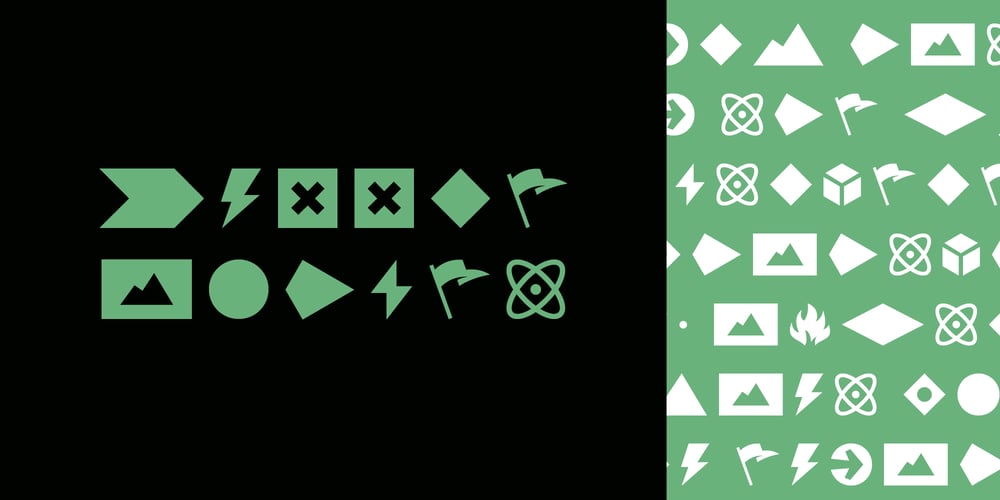
Bullet Points
Bullet Points font
Bullet Points Font Family was designed by Thomas Ramey and published by Thomas Ramey Design. Bullet Points contains 1 styles and family package options. Do you ever get tired of the same bullet points in every report, presentation, or book. Well Bullet Points Font is the solution. This font is jammed pack with a wide range of glyphs, symbols, shapes, and icons which can help take your designs to the next level and add a nice elevated touch to your presentations.Using InDesign and other programs simply add your chosen glyph using the bullet point menu and you are off and running. Choose the same icon for the whole list or change it up line by line to your needs.